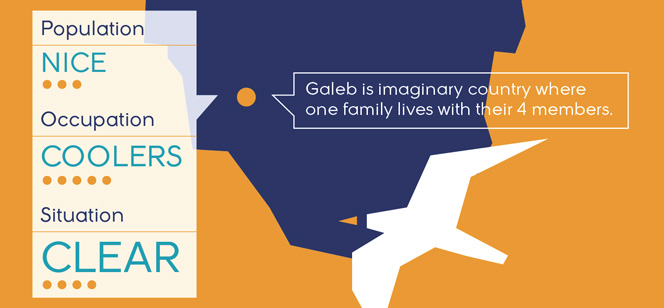
Galeb font
Galeb font is a fresh geometrical sans serif family. Designed with smooth curves and precise contrast Galeb will perform perfectly on low resolution screen as well as in unfavorable print conditions. This makes the whole family perfect for e-books, web sites, electronic documents, etc. Also you will be very satisfied when you use it for editorial design in different publications like books, leaflets, posters, annual reports, etc. Wider apertures and lower contrast in light weights will give you many different options for small body text sizes, long paragraphs, etc., while the high contrast weights will leave enough room for your creativity when you design strong headlines, brand names, etc.
All in all Galeb is a contemporary font family developed in 4 weights available for licensing as desktop or web-font. You could also enjoy the beautiful presentational images and get a good idea of how to use this family.